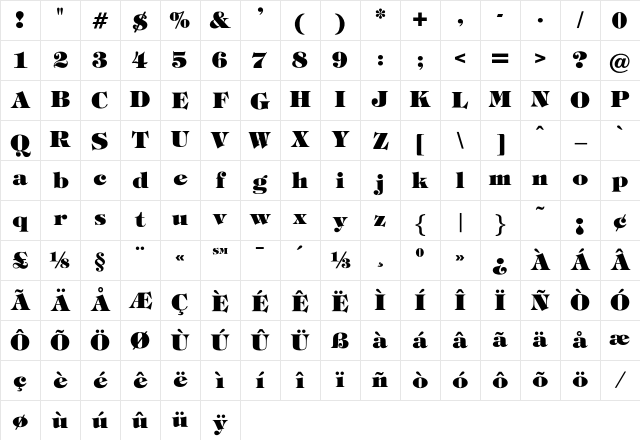
OPTIMarkberry Heavy
Design Context for OPTIMarkberry
OPTIMarkberry is a composed and adaptable typeface that performs quietly and consistently across a wide range of design contexts.